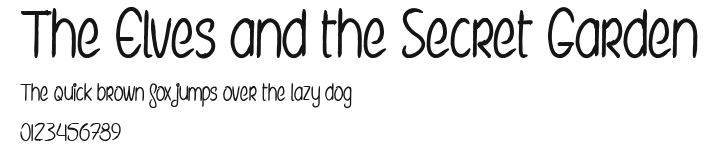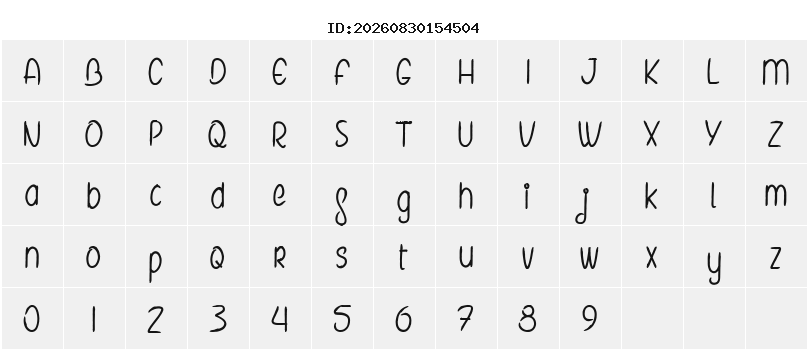
• Font Name: The Elves and the Secret Garden
• Font ID: Maelle.K: The Elves and the Secret Garden : 2016
• Full Font Name: The Elves and the Secret Garden
• PostScript Name: The Elves and the Secret Garden
• Character Count: 180
• Designer: Maelle.K
• Manufacturer: Maelle.K
About The Elves and the Secret Garden.ttf
The Elves and the Secret Garden.ttf is a modern, elegant sans-serif font designed for ultimate readability and visual harmony. Perfect for branding, headlines, web design, and print materials.